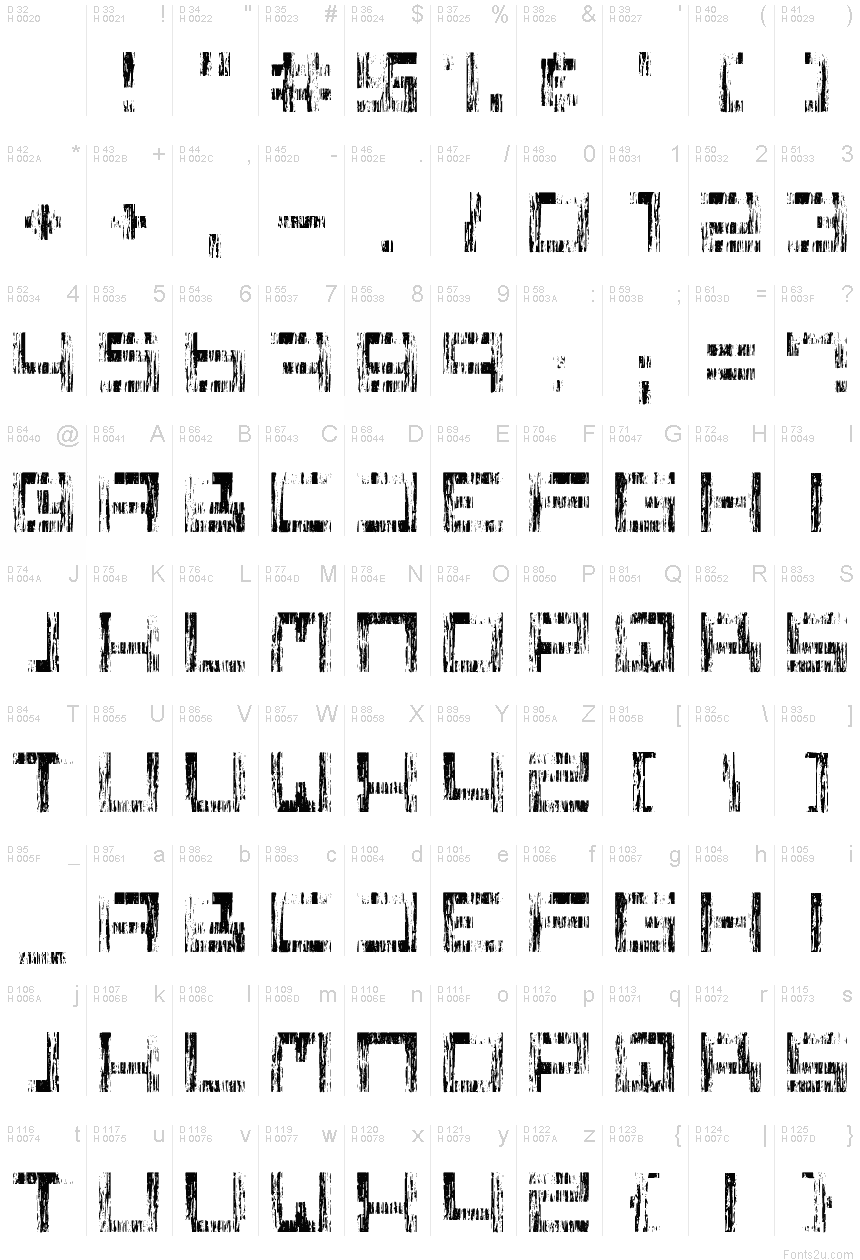
Square One Grunge, designed by David Kerkhoff, is a free eroded techno display font with stark, squared letterforms and a heavily scraped surface. Narrow gaps and broken strokes give the lettering an industrial, stencil-like build.
Streetwear labels and independent music brands can use its battered geometry for a raw mechanical identity. It also fits gig posters, game graphics, and distressed merchandise. In these settings, the fragmented letters can become part of damaged signage or machinery texture rather than serving as neutral text.